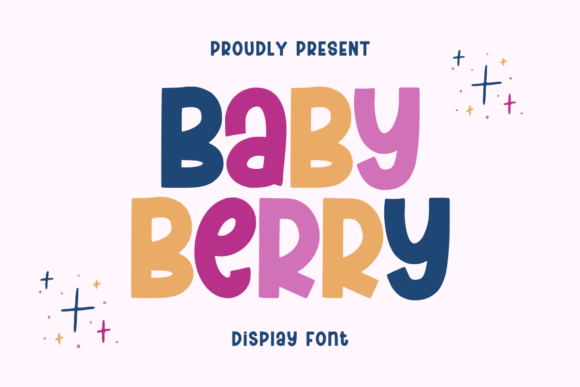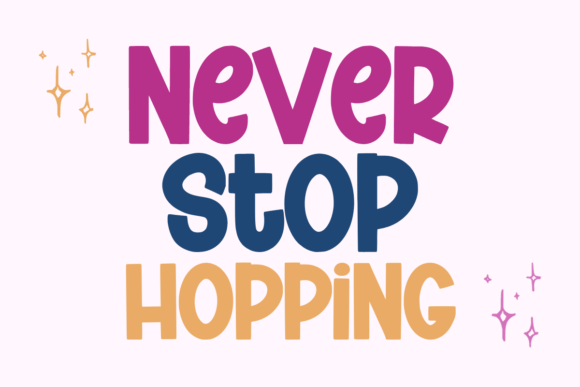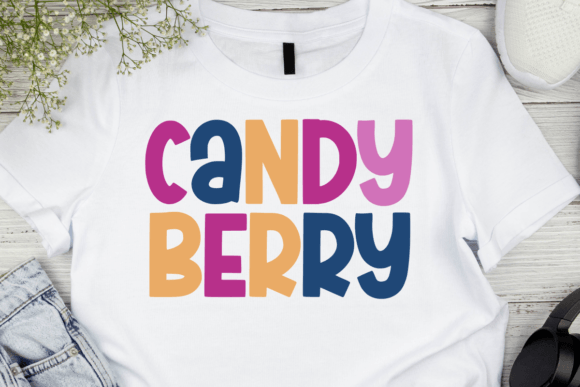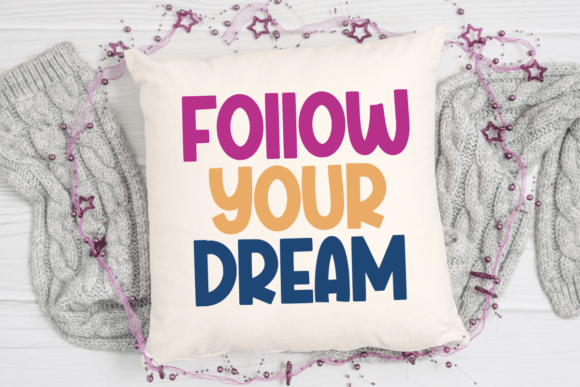
Baby Berry Font
About the Baby Berry Font
Explore the possibilities with Baby Berry Font, a font that offers both beauty and functionality. Baby Berry is a fun and quirky display font. This font is very suitable for your various creative needs such as printing, books, titles, headlines,wedding,quotes, photography, decoration, branding, logos, and others.
Baby Berry’s playful character makes it ideal for headlines, short text blocks on posters or packaging, and branding projects targeting a young, fun-loving audience. It works particularly well for projects emphasizing whimsy and creativity, such as children’s books, invitations, or social media graphics. However, its unique letterforms are less suitable for body text or UI elements requiring high readability. Extended use would likely hinder legibility.
Pairing Baby Berry effectively requires considering its quirky nature. A clean sans-serif like Open Sans or a classic serif like Garamond would provide a strong contrast, creating visual balance and enhancing readability when used alongside the display font. For a more playful aesthetic, a rounded geometric sans-serif could also work well.
The font’s overall personality is best described as friendly and whimsical, leaning towards a lighthearted and approachable aesthetic. It’s not suitable for projects demanding sophistication or formality, but excels in designs needing a touch of lighthearted charm.
Baby Berry Font Usage Examples
Baby Berry Font Example